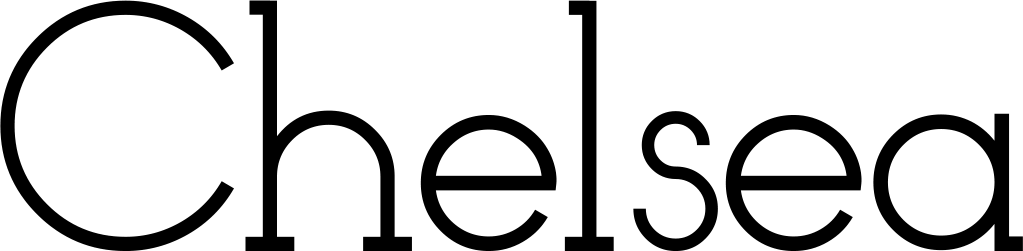
Chelsea Font
Designed byNathan Thomson
Cover all your official writings, especially headlines, websites, magazines, books, posters, and other printed text with the reliable and authentic effects of this serif font, and let it commit to memory for a lasting time.
Due to the serif and edgy design of this Chelsea font, all readers can constantly feel a classical sense of sweet past days that can bring pleasing feedback in the design of typography.
This is the Chelsea font. Named after the love of my life.